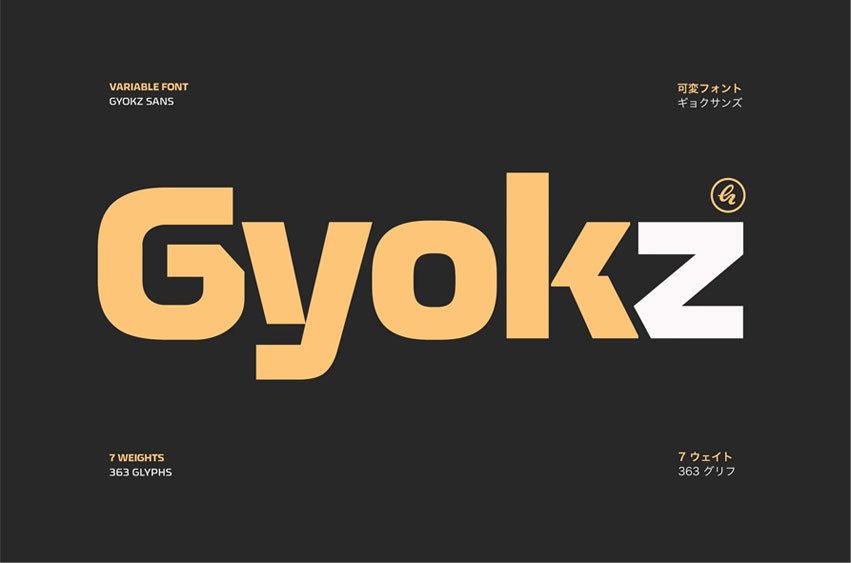
Gyokz Sans Font is the sans-serif that speaks with a clear, confident whisper rather than a shout. With a graceful spectrum of weights from airy Light to substantial Black, it’s designed to adapt effortlessly to your creative vision, providing elegant clarity for both expressive headlines and refined body text. Its carefully crafted character set ensures beauty and legibility extend across languages, making it a thoughtful and versatile choice for projects that value subtlety and sophistication. Let Gyokz bring a touch of quiet confidence and polished modernity to your next design.
- 7 weights (Light-Regular-Medium-SemiBold-Bold-ExtraBold-Black)
- Variable font – Weight Axis
- Uppercase – Lowercase
- Numerals – Punctuations – Symbols
- Ligatures – Stylistic Sets/Alternates
- Accents – Multilingual Characters – Adobe Latin 3